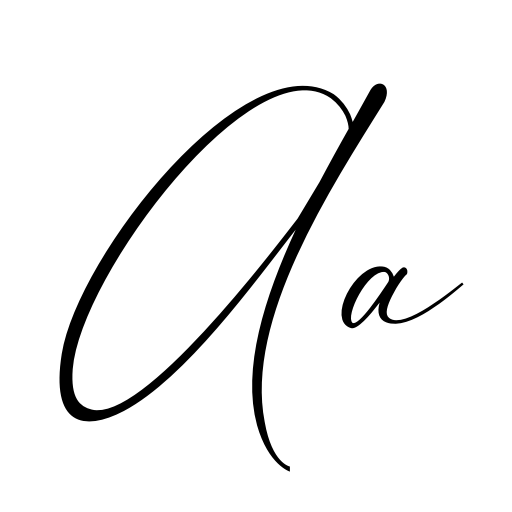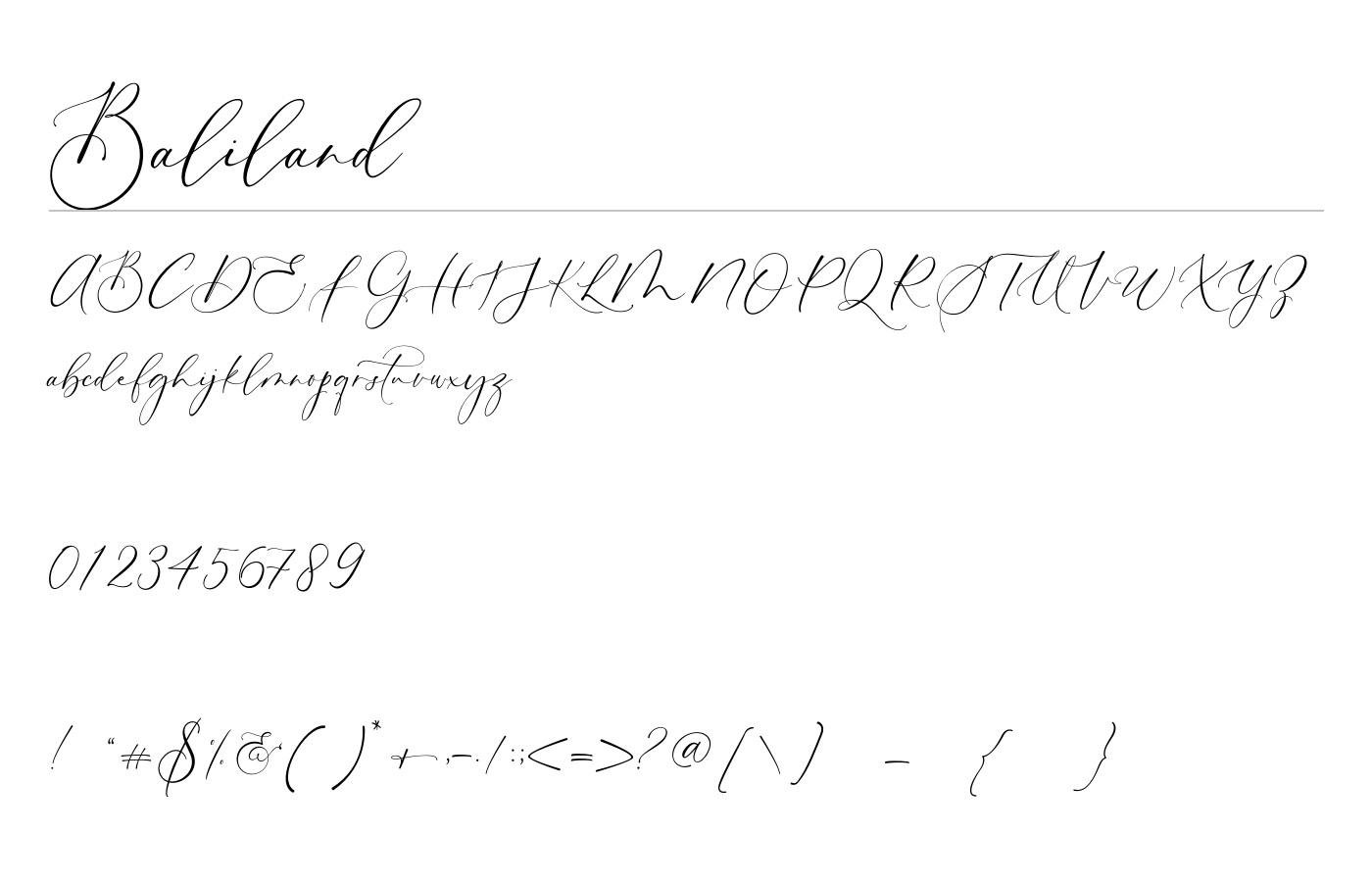
Baliland is an elegant and delicate script font characterized by its slender, flowing strokes and graceful swashes that create a refined, hand-lettered feel. Its thin weight and high contrast strokes make it perfect for sophisticated branding, wedding invitations, and luxury packaging where a touch of romance and artistry is desired. This font works best in display uses such as logos and headlines, bringing a stylish, feminine charm to any design.
Baliland Font
About Baliland Font